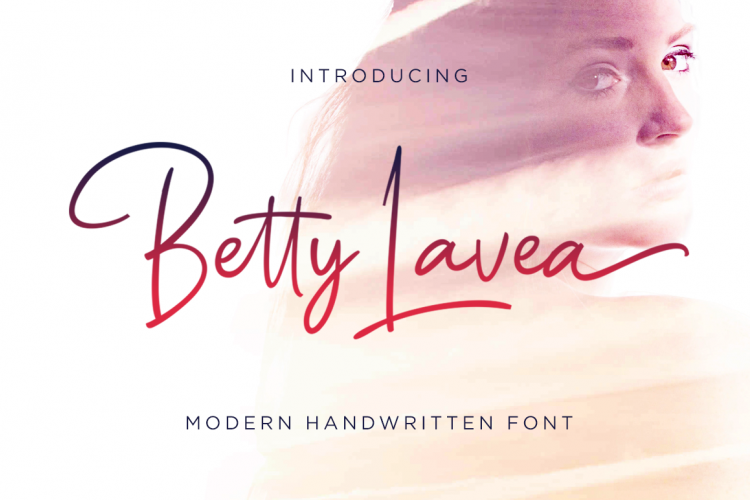
Betty Lavea Handwritten Font
The Betty Lavea is a modern handwritten font. It has a natural handwritten style which will give any design a personal touch. It is design and shared by Iklaz Studio. This font is ideal for branding and decorate your any project, are perfect for wedding invitation or your blog. Also with their help, you can create a logo or beautiful frame for your home.